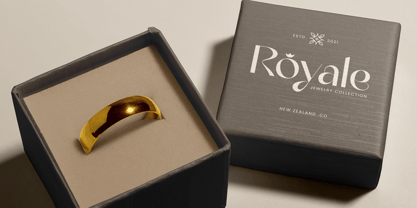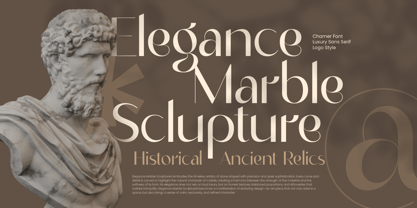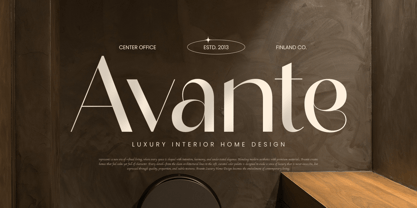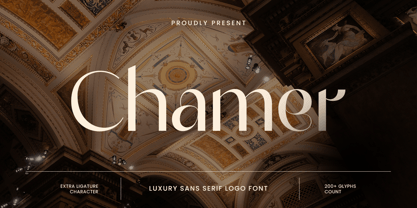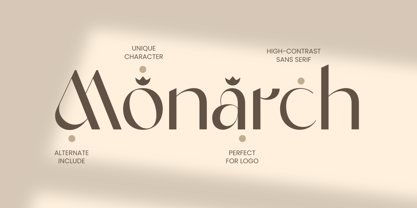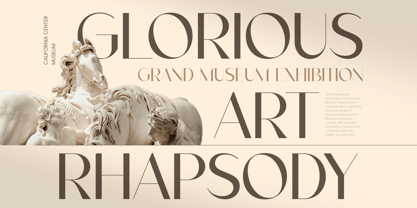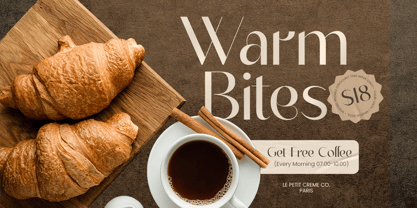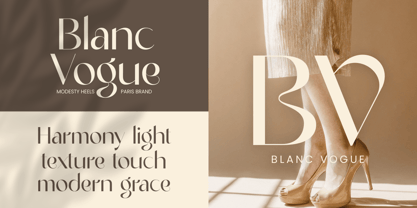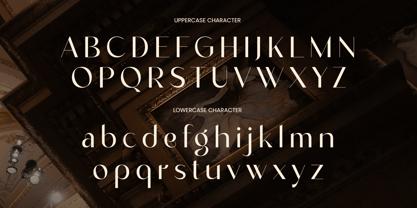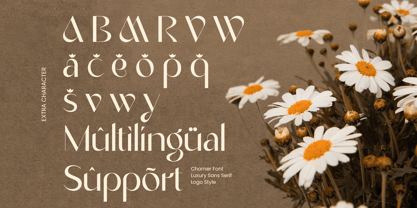
Chamer - Luxury Sans Serif Logo Font
Chamer is a luxury sans serif logo font designed to deliver elegance through simplicity. With clean lines, balanced proportions, and a confident modern presence, this typeface creates a premium look that feels refined, professional, and timeless.
Perfect for luxury branding, modern logos, fashion labels, beauty brands, corporate identities, and upscale editorials, Chamer works seamlessly across logos, packaging, websites, social media visuals, signage, and print materials. Its sans serif construction keeps layouts clean and contemporary, while its subtle luxury tone elevates the overall brand perception.
Whether you’re building a high-end startup identity, a minimalist luxury brand, or a polished corporate logo system, Chamer provides a sophisticated typographic foundation that looks expensive without being overstated.
Chamer – Luxury Sans Serif Features
Clean luxury sans serif letterforms for premium logotypes
Modern, elegant style with strong brand presence
Ideal for logos, branding, packaging, and editorials
Perfect for fashion, beauty, corporate, and boutique design
Includes uppercase, lowercase, numerals, and punctuation
Excellent readability for both digital and print projects
OpenType features for refined typographic control
Multilingual Support Afrikaans, Albanian, Asu, Basque, Bemba, Bena, Breton, Chiga, Cornish, Dutch, English, Estonian, Filipino, Finnish, Friulian, Galician, German, Gusii, Indonesian, Irish, Italian, Kabuverdianu, Kalenjin, Kinyarwanda, Luo, Luxembourgish, Luyia, Machame, Makhuwa-Meetto, Makonde, Malagasy, Manx, Morisyen, North Ndebele, Nyankole, Oromo, Portuguese, Quechua, Romansh, Rombo, Rundi, Rwa, Samburu, Sango, Sangu, Scottish Gaelic, Sena, Shambala, Shona, Soga, Somali, Spanish, Swahili, Swedish, Swiss, and more.